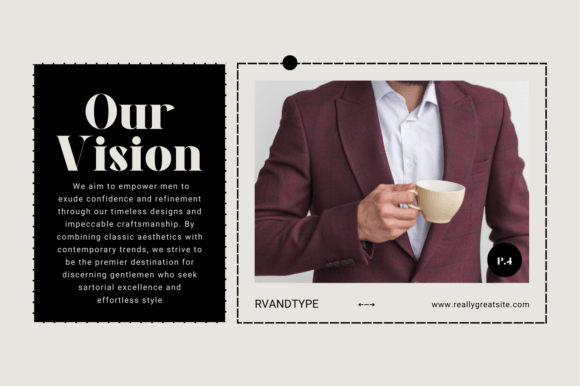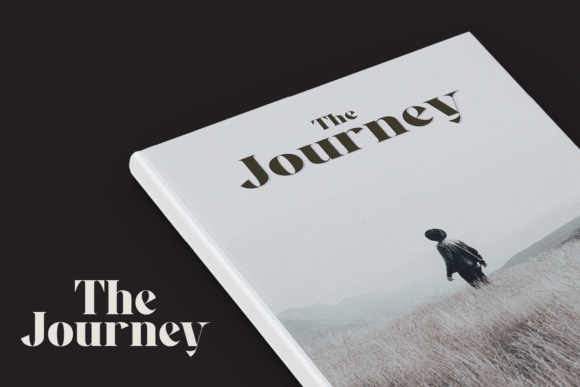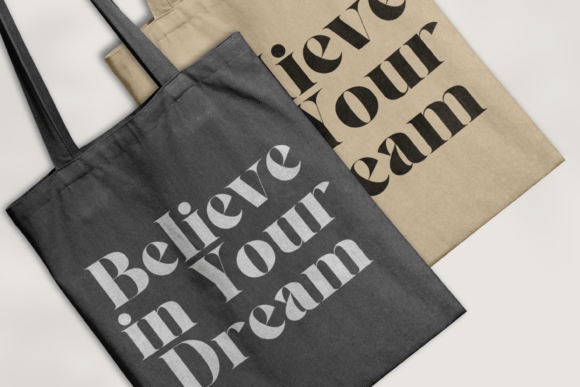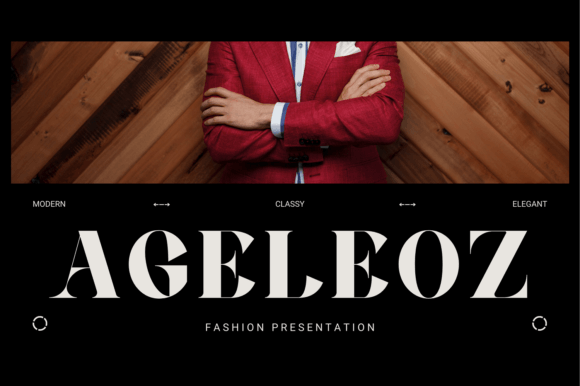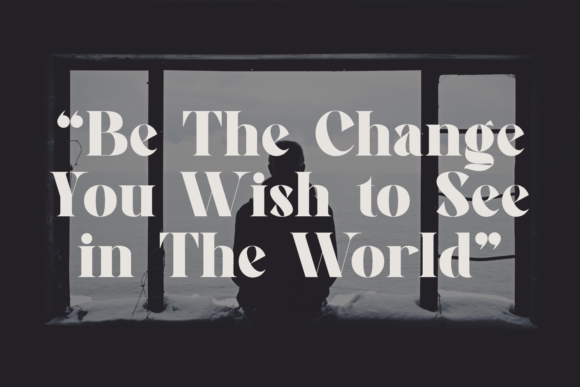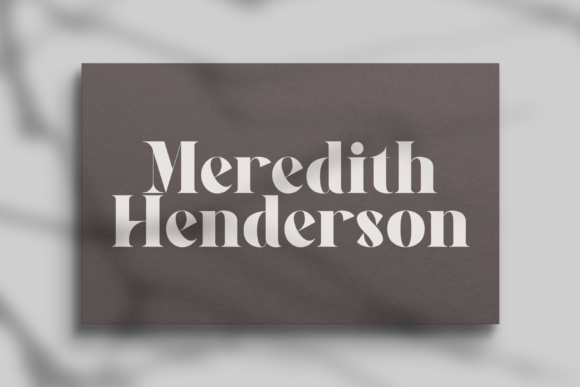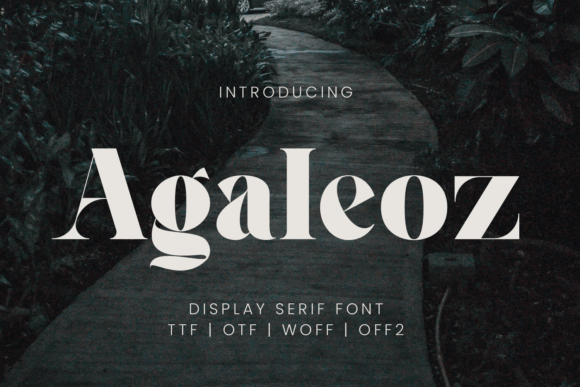
Introducing Agaleoz Font: Elevate Your Designs with Elegance
Are you a designer or crafter looking for a font that exudes sophistication and refinement? Look no further than Agaleoz, an elegant serif font that is perfect for a wide range of design applications. From logos and branding to invitations, stationery, wedding designs, and social media posts, Agaleoz is the ideal choice for anyone seeking to add a touch of luxury to their work.
The Characteristics of Agaleoz Font
Agaleoz is a beautifully crafted serif font that boasts a range of characteristics that make it perfect for designs that require a high level of elegance and sophistication. Some of the key features of Agaleoz include:
- Classic Serif Design: Agaleoz features a traditional serif design that is reminiscent of classic typography. The font’s serifs are carefully crafted to add a touch of refinement to any design.
- Elegant Lines: The lines of Agaleoz are smooth and flowing, making it perfect for designs that require a high level of sophistication.
- Versatile: Agaleoz is a versatile font that can be used in a wide range of design applications, from logos and branding to invitations and social media posts.
Uses for Agaleoz Font
Agaleoz is a highly versatile font that can be used in a wide range of design applications. Some of the most popular uses for Agaleoz include:
- Logos and Branding: Agaleoz is perfect for logos and branding that require a high level of sophistication and elegance.
- Invitations and Stationery: The font’s elegant lines and classic serif design make it perfect for invitations, stationery, and other paper goods.
- Wedding Designs: Agaleoz is a popular choice for wedding designs, including wedding invitations, programs, and other stationery.
- Social Media Posts: The font’s clean and elegant design make it perfect for social media posts that require a high level of sophistication.
Why Choose Agaleoz Font?
There are many reasons why designers and crafters choose Agaleoz for their design projects. Some of the key benefits of using Agaleoz include:
- Unique and Elegant Design: Agaleoz features a unique and elegant design that is sure to make your designs stand out.
- Highly Versatile: The font’s versatility makes it perfect for a wide range of design applications.
- Easy to Read: Agaleoz is highly legible, making it perfect for designs that require a high level of readability.
Tips for Using Agaleoz Font
To get the most out of Agaleoz, here are a few tips to keep in mind:
- Use it with a Clear Background: Agaleoz looks best when used with a clear or light-colored background.
- Experiment with Font Sizes: The font’s elegance and sophistication make it perfect for use in a wide range of font sizes.
- Pair it with Other Fonts: Agaleoz can be paired with other fonts to create a unique and visually appealing design.
Agaleoz is an elegant serif font that is perfect for designers and crafters looking to add a touch of sophistication and refinement to their work. With its classic serif design, elegant lines, and versatility, Agaleoz is the ideal choice for a wide range of design applications. Whether you’re creating logos and branding, invitations and stationery, wedding designs, or social media posts, Agaleoz is sure to elevate your designs to the next level.